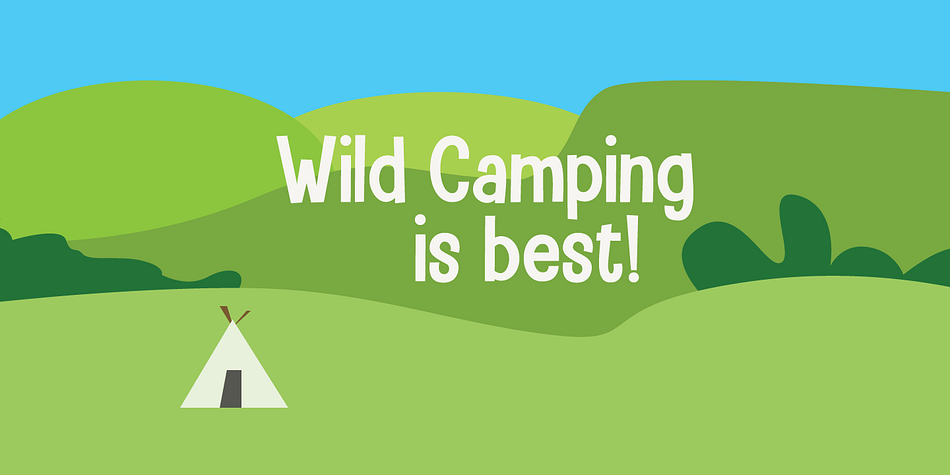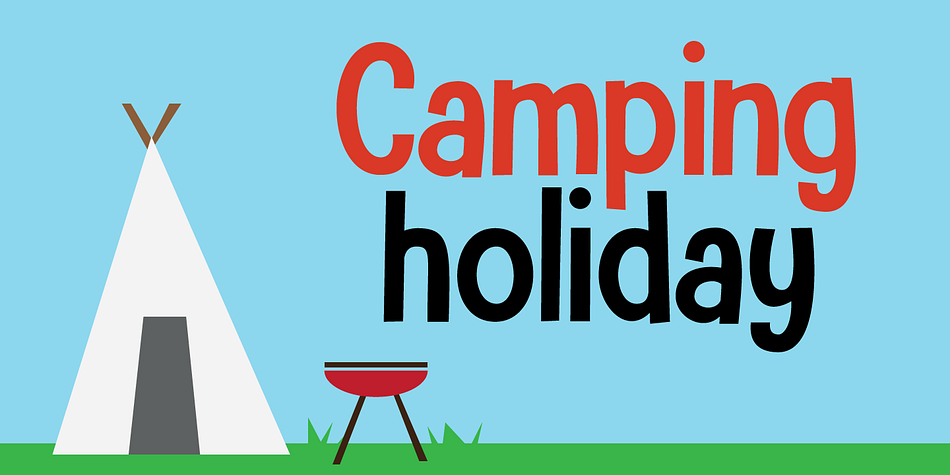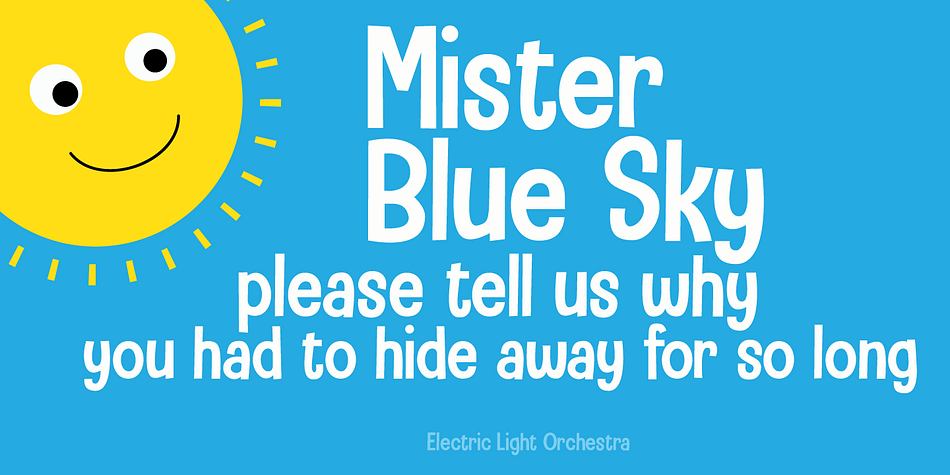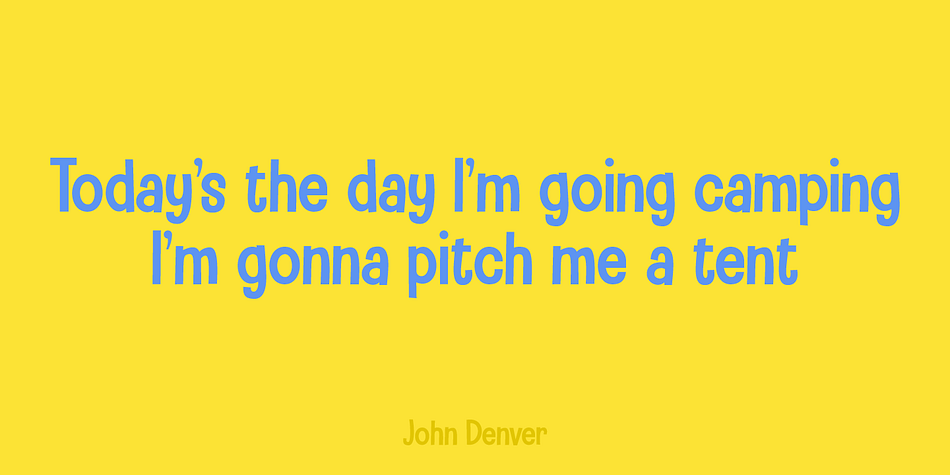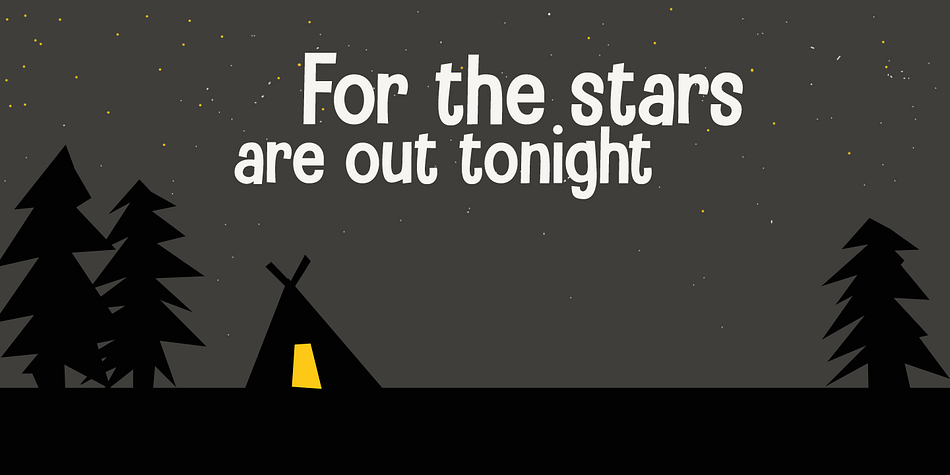
Designed by David Kerkhoff, Camping Holiday is a hand drawn and kids font family. This typeface has two styles and was published by Hanoded.
My family and I are off to England for a camping holiday this summer. I have booked some small, basic campsites which are close to nature. The kids love to camp, especially since we can have a campfire at night!
I was thinking about this when I worked on Camping Holiday font. It is a cute sans serif ‘book cover’ font. That doesn’t mean that you cannot use it for something else; fancy a poster? No problem. Need a font for your website? Go ahead! It’s yours for the taking!